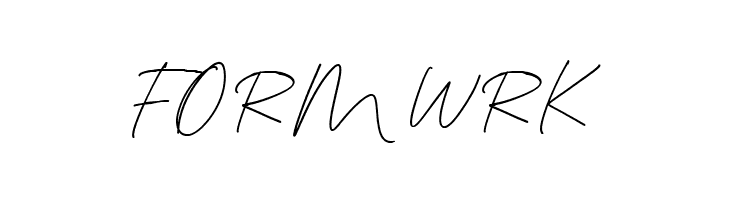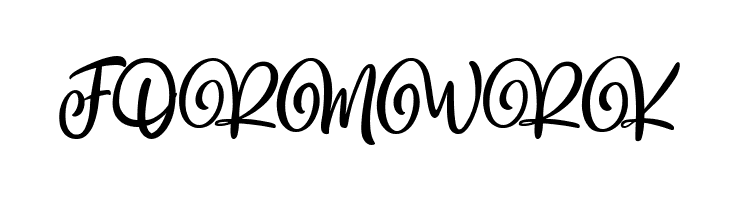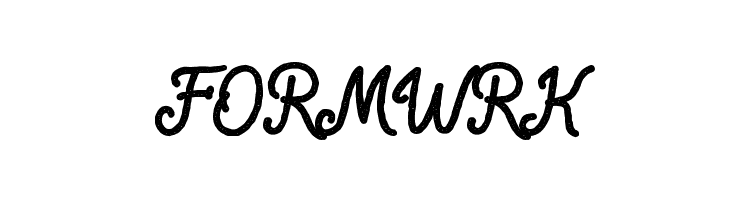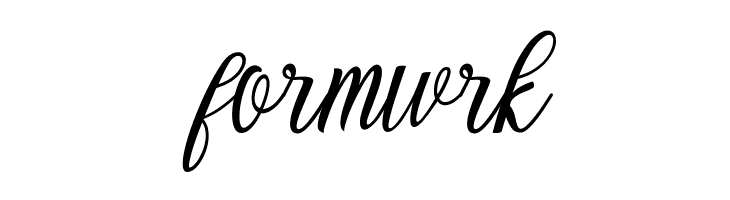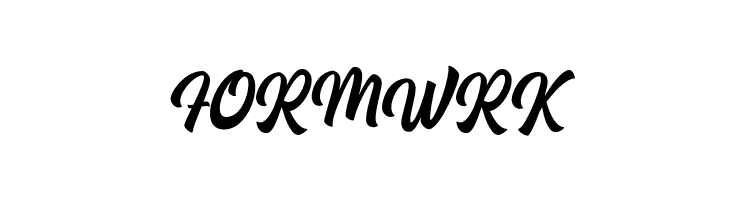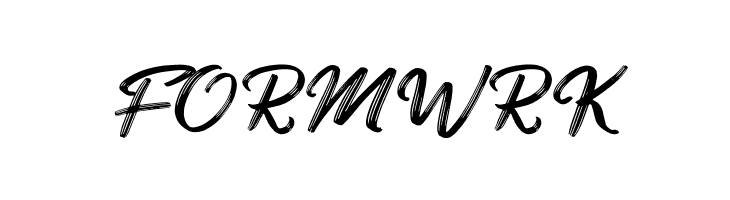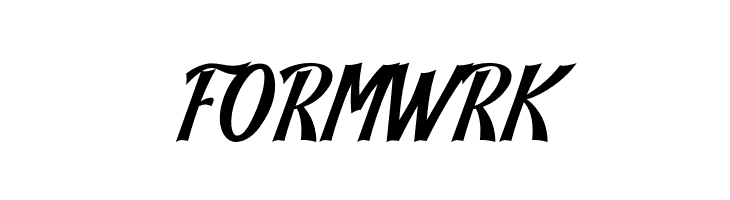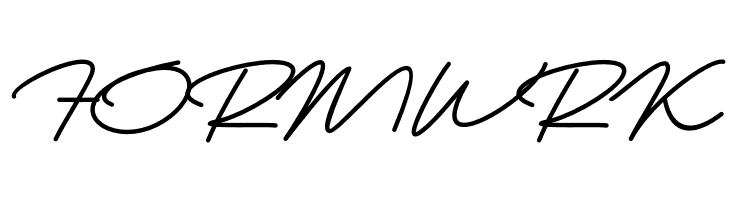
A playful, hand-drawn script font with a textured, stamp-like finish.
A bold, dynamic script font with flowing, interconnected strokes.
A lively and dynamic script font with flowing, cursive letterforms.
A bold, expressive script font with a hand-drawn, artistic style.
A fluid, cursive script font with elegant, connected characters.
A dynamic and elegant script font with flowing, cursive letterforms.
A flowing, elegant cursive font with interconnected strokes and a handwritten appearance.
A flowing, elegant script font with smooth, connected strokes.